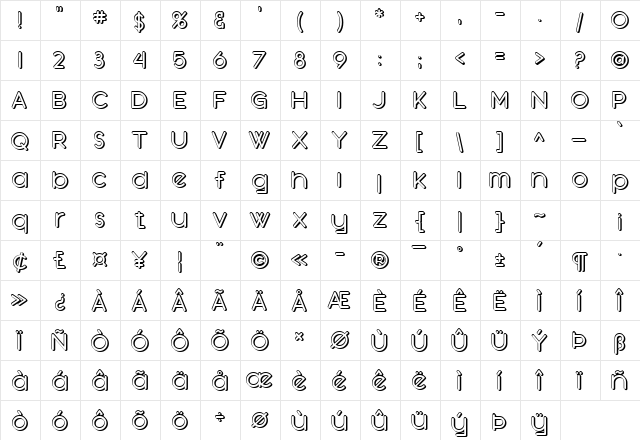
SF Orson Casual Shaded Regular Free Font
SF Orson Casual Shaded Regular
Designer: ShyFonts Type Foundry
Design Context for SF Orson Casual Shaded
SF Orson Casual Shaded is a composed and adaptable typeface that performs quietly and consistently across a wide range of design contexts.